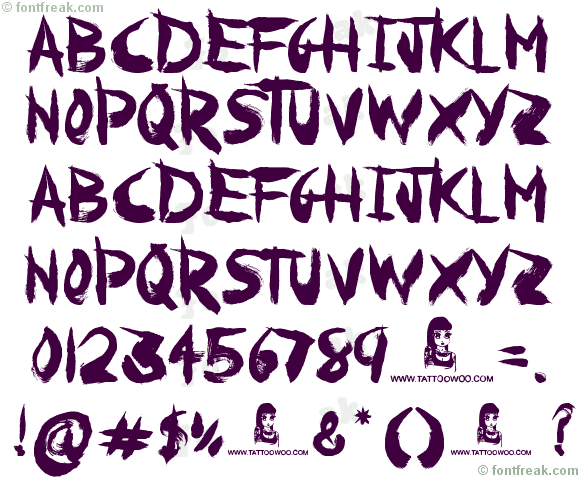
Paranoia
About Paranoia
The Paranoia font by Jonathan S. Harris is a striking display typeface that embodies a unique blend of edgy and artistic flair. This decorative font features a bold, irregular stroke weight, giving it an organic, hand-drawn appearance. The uneven edges and sharp angles create a sense of movement and urgency, while the high contrast between thick and thin lines adds depth to each character. The spacing is thoughtfully arranged to enhance readability while maintaining the font's distinct personality, making it ideal for various creative projects.
Paranoia is particularly suited for use in eye-catching applications such as movie posters, where its dramatic style can evoke a sense of intrigue and suspense. It also works well for album covers, especially in genres like rock or alternative music, where a bold visual statement is needed. For graphic designers looking to create striking branding materials, Paranoia can make a memorable impact on business cards or promotional flyers. Additionally, this font can add a unique touch to Halloween-themed invitations or events, amplifying the spooky atmosphere with its unsettling aesthetic.
What sets the Paranoia font apart is its ability to capture attention and evoke emotion through its distinctive visual characteristics. Whether you are crafting a bold statement or seeking to convey an atmospheric narrative, this font brings a unique edge to your projects. Discover the Paranoia font free download today and elevate your designs with its compelling presence.